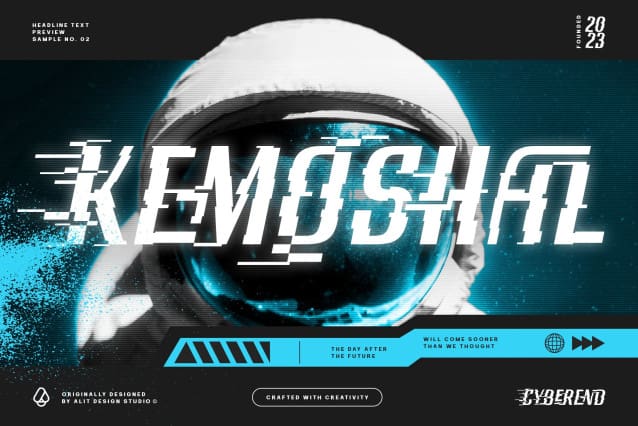
Cyberend Font
Cyberend Font is a font that seamlessly marries the raw, edgy aesthetic of cyberpunk with the precision of square pixels and the sleek modernity of italic serifs. As the digital world converges with futuristic design, Cyberend emerges as the quintessential typeface for those seeking a cyberpunk-inspired typographic experience.